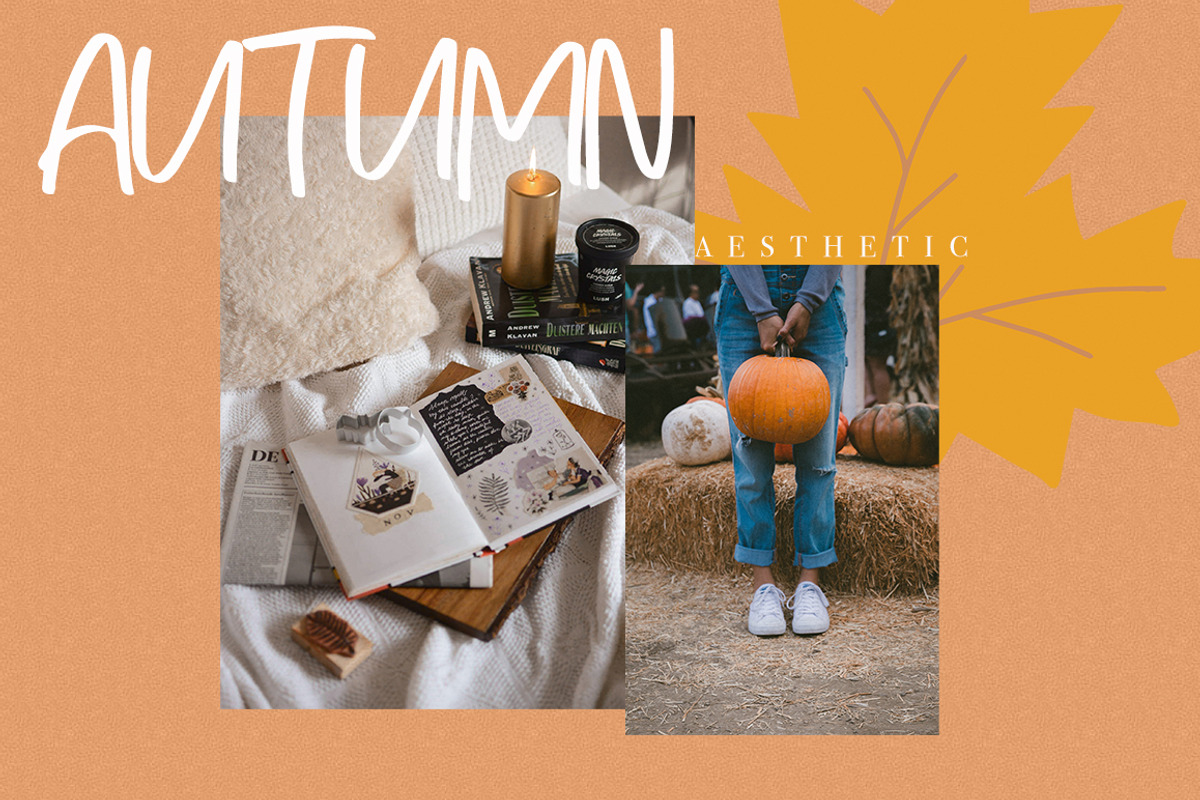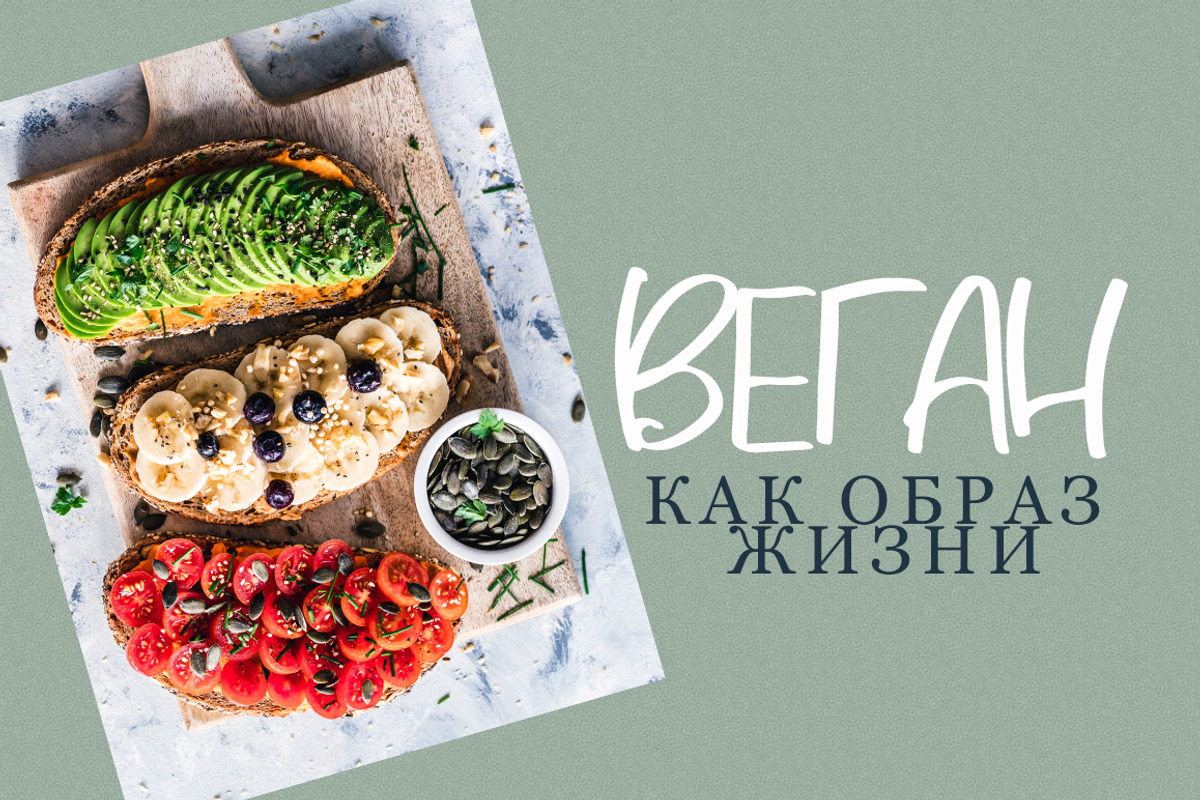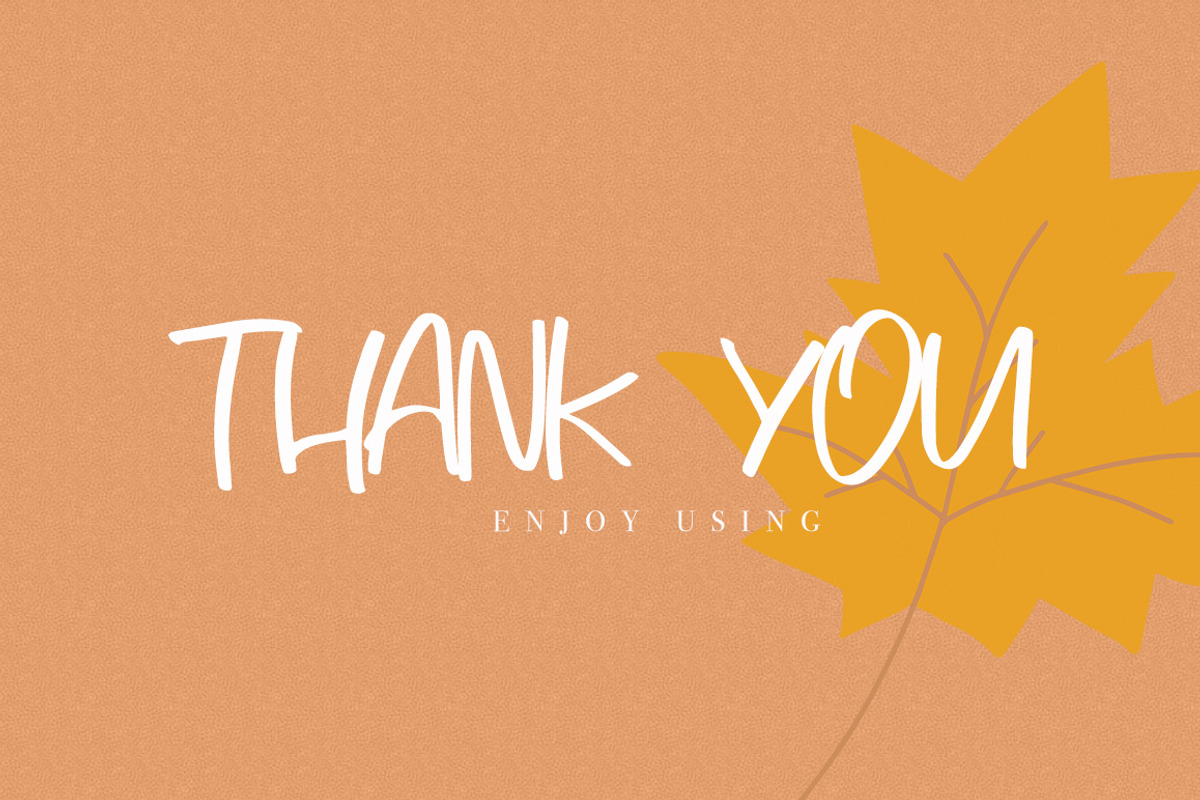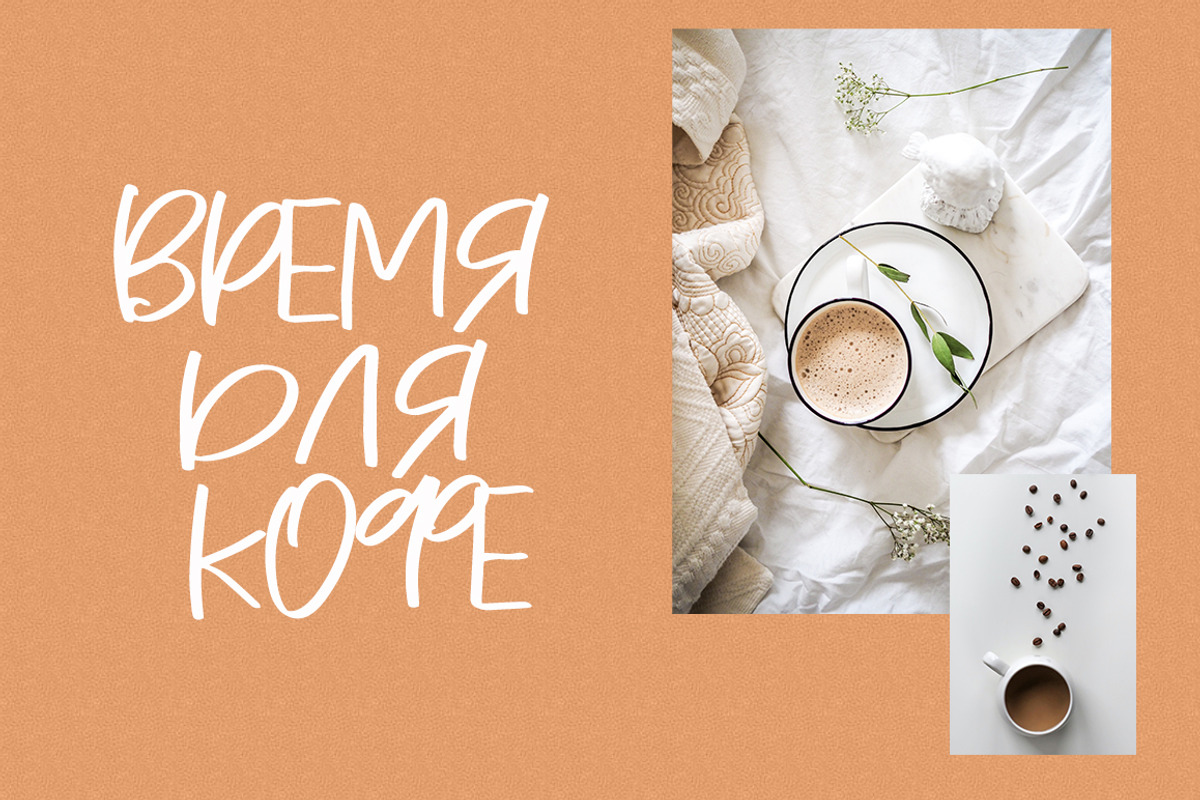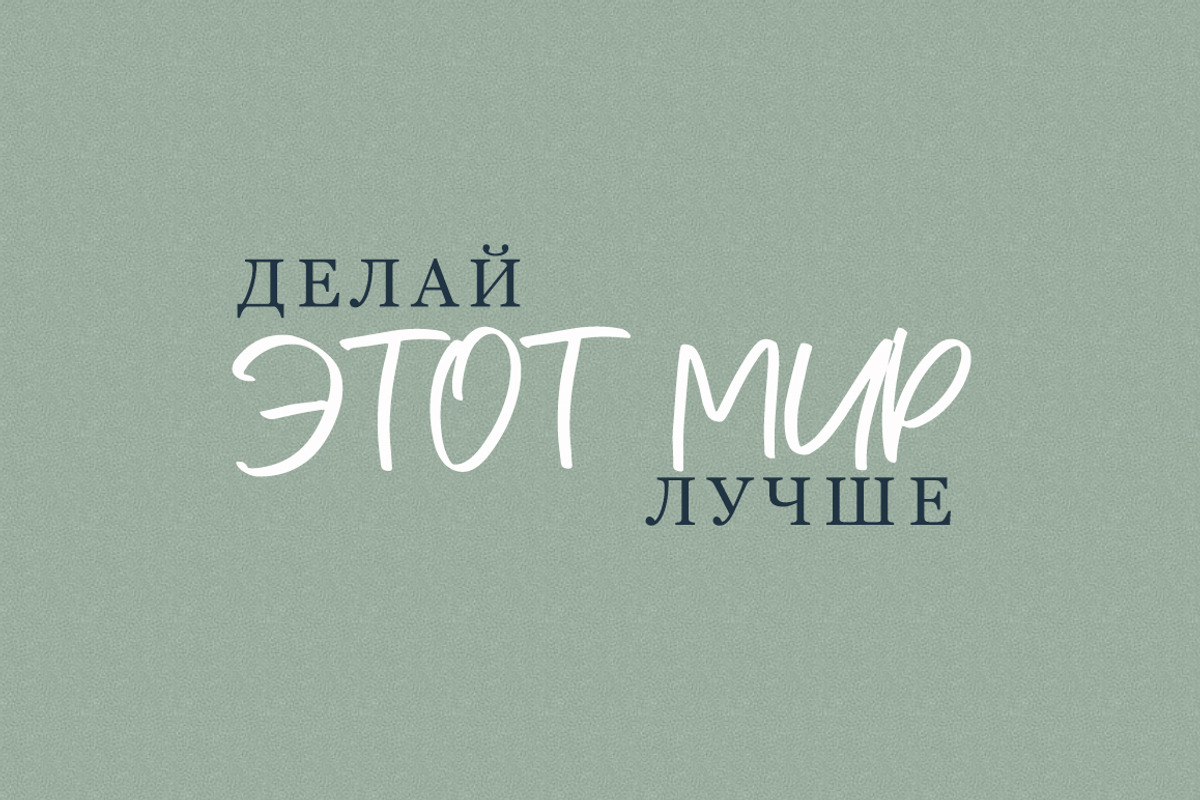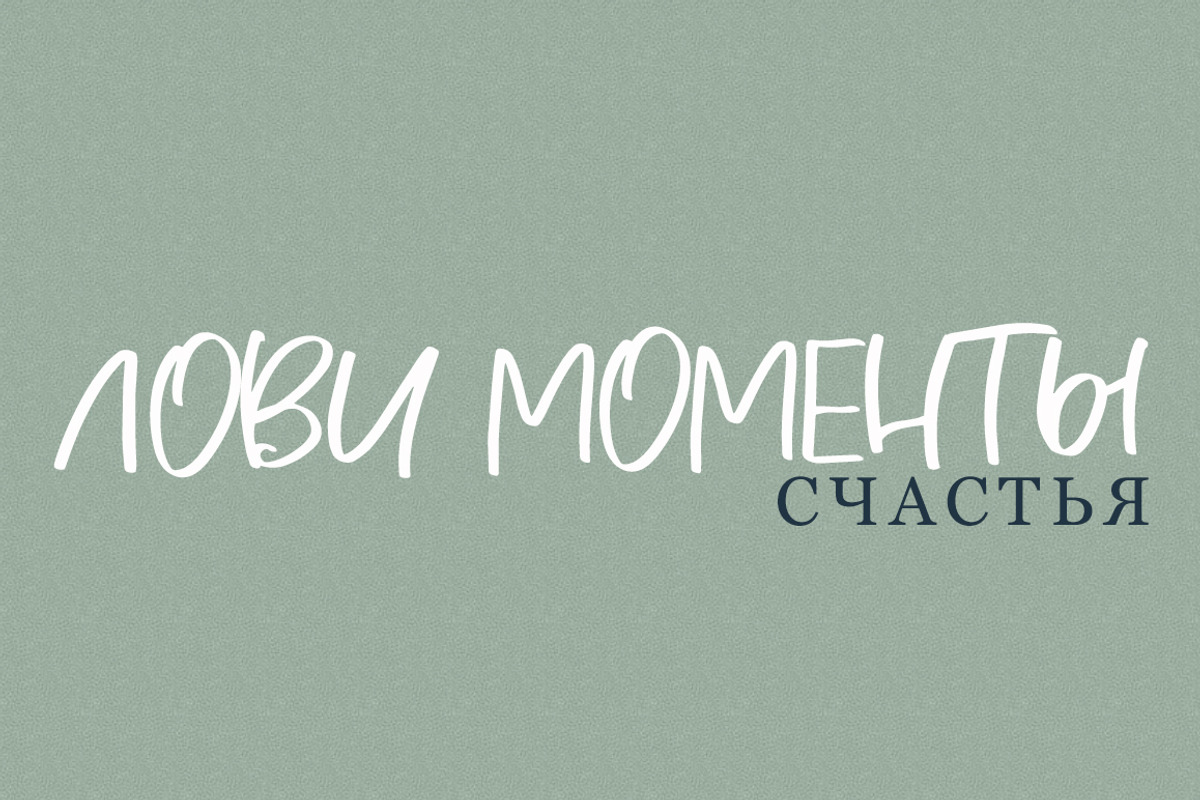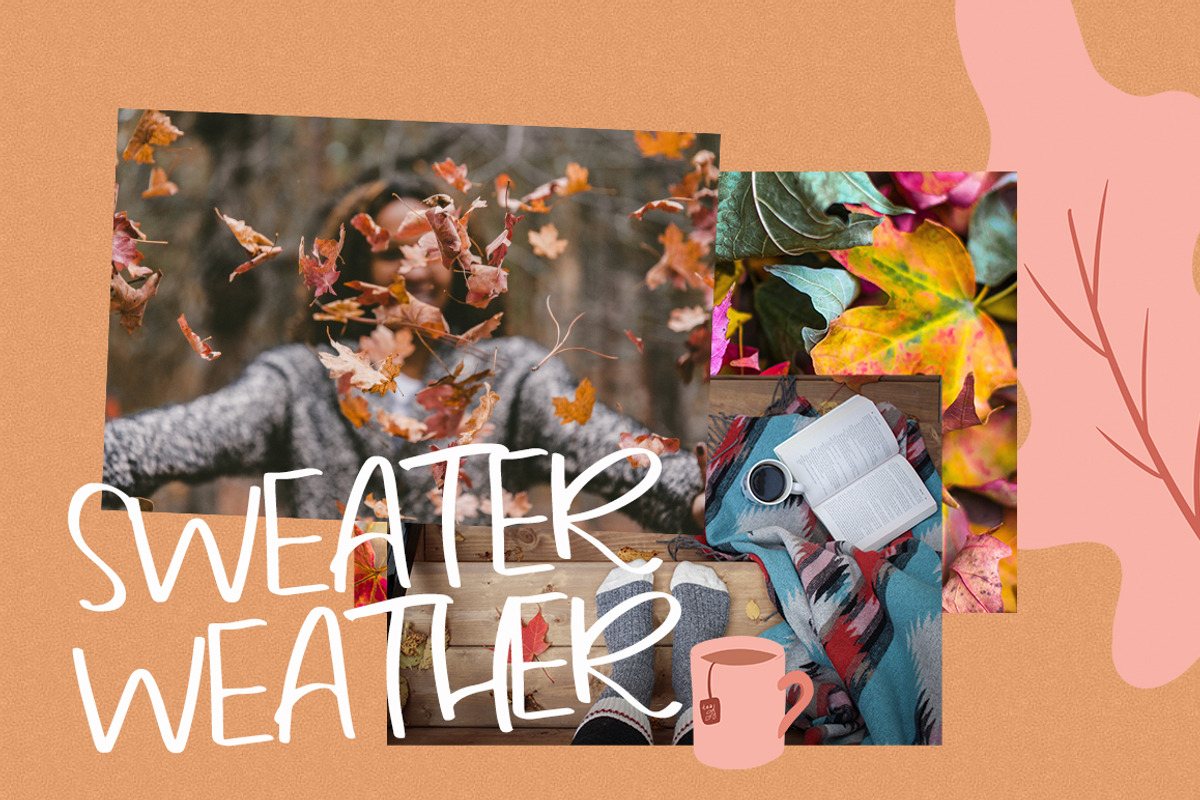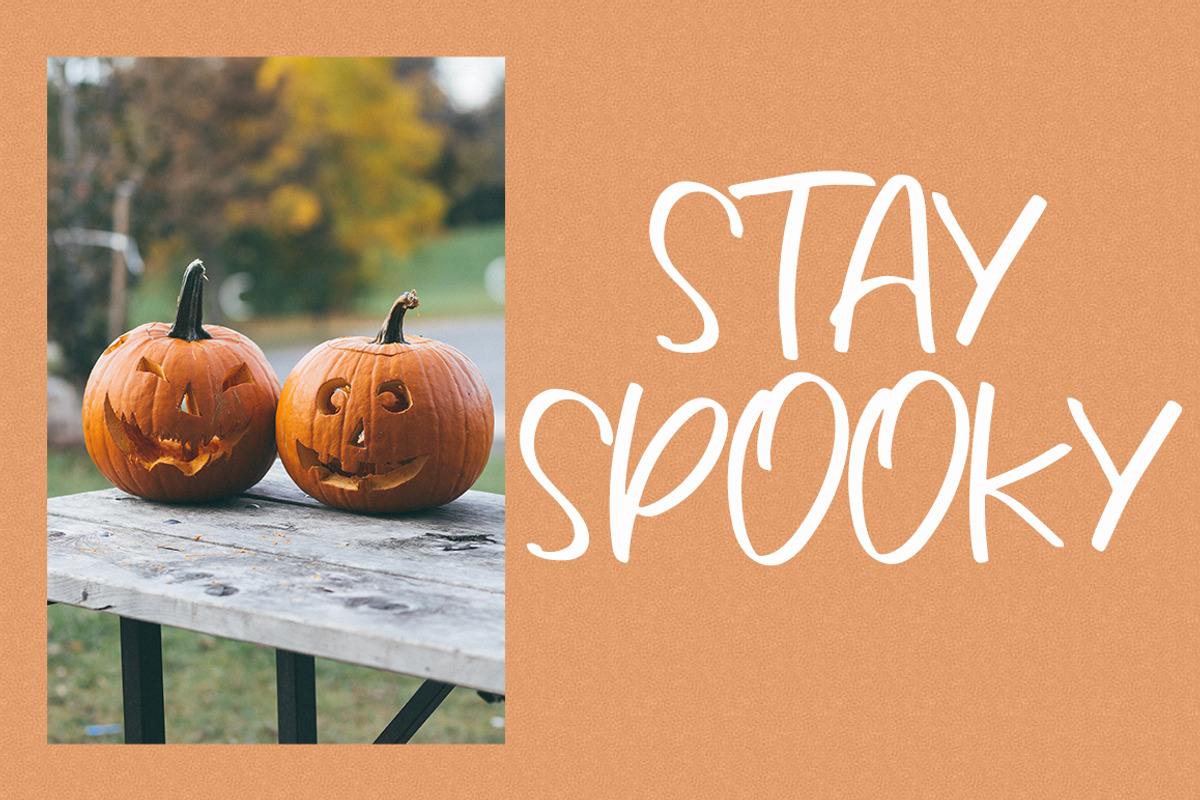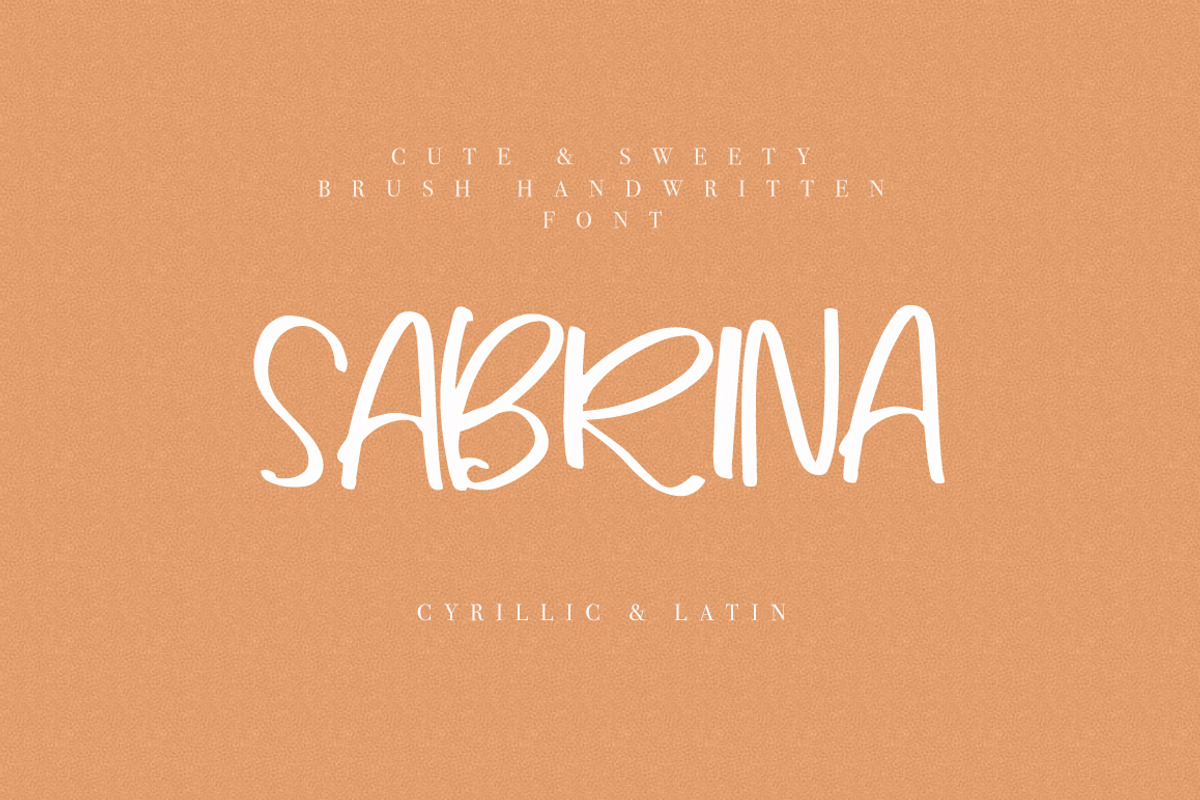
Sabrina Latin & Cyrillic Font
SABRINA is sweet and playful, but also Crafty. This versatile script font has a wide range of applications ranging from greeting cards to kids’ crafts, and is guaranteed to add a sweet touch to your next design.
CYRILLIC SUPPORT
Standard glyphs, numbers, punctuation.